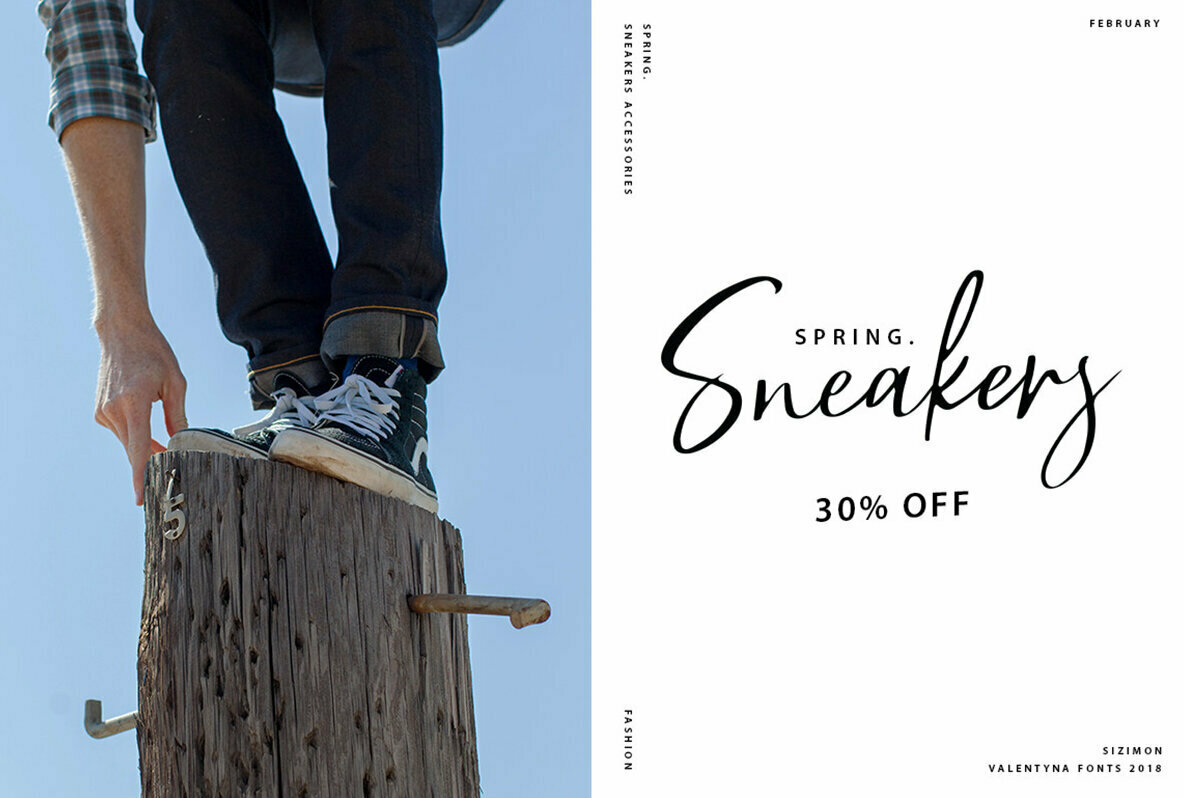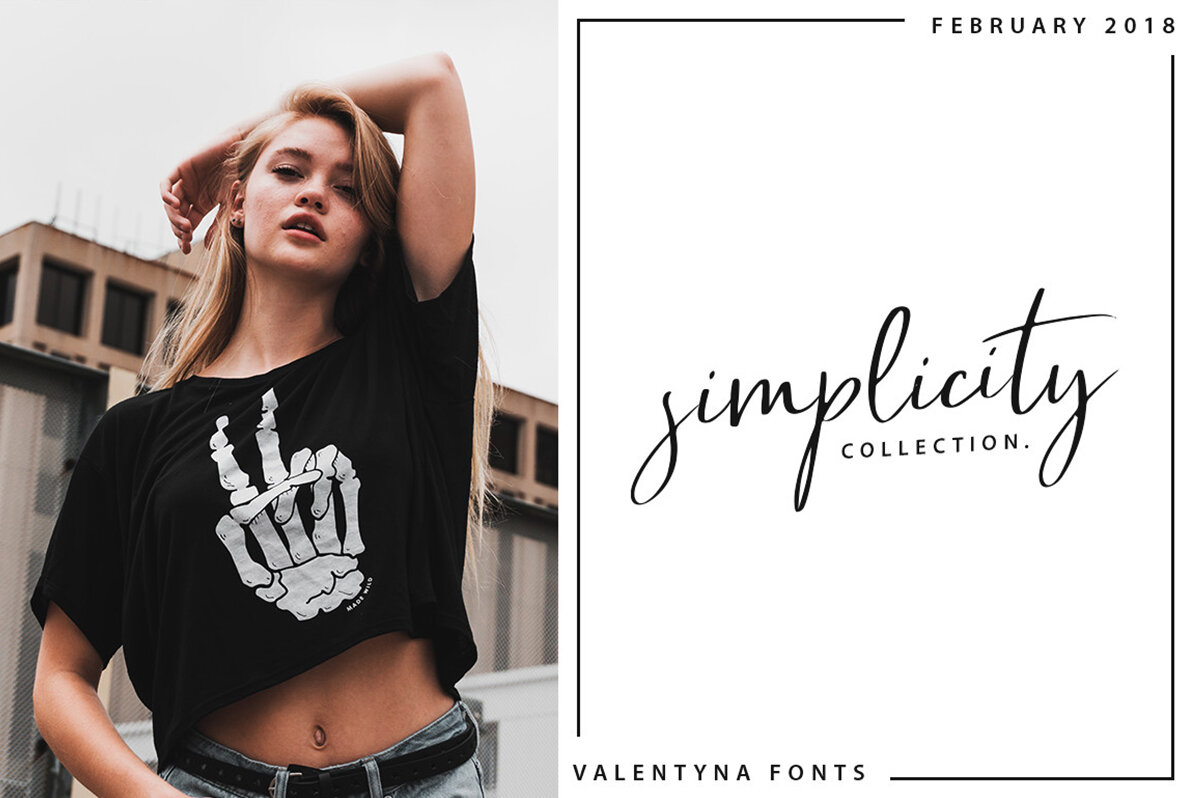
Bethany Script Font
Bethany Script
Every brand aims to exude elegance and sophistication, and Bethany Script offers a perfect avenue to achieve such style. Designed with impeccable attention to detail, this handwritten font seamlessly complements fashion, e-commerce platforms, trend blogs, or any venture striving for a chic appearance. No additional design software is required to access the full potential of Bethany Script. However, to explore alternate glyphs, programs supporting OpenType features such as Adobe Illustrator CS, Adobe Photoshop CC, Adobe InDesign, and Corel Draw are recommended. Let Bethany Script be the pivotal element in your design toolkit, enhancing your creative projects with its distinguished charm.Bethany Script: A Stylish Handwritten Font